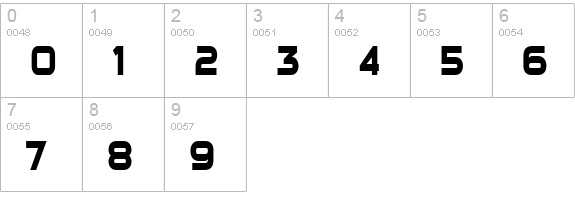
Sui Generis Condensed is a distinctive, condensed-width variant in the Sui typeface family \xE2\x80\x94 well suited to design and typography projects.
Sui Generis Condensed font is a modern and sleek typeface designed for a wide range of applications. Its condensed form makes it perfect for headlines, titles, and other display purposes where space is limited. The clean lines and sharp edges of this font give it a contemporary and professional look. What sets Sui Generis Condensed font apart is that it is available for free download at FontsMarket.com. This means that you can easily access and use this high-quality font for your projects without any cost. Whether you're working on a branding project, poster design, or website layout, Sui Generis Condensed font is a versatile choice that will elevate your work with its stylish and minimalist aesthetic. Don't miss out on the opportunity to enhance your designs with Sui Generis Condensed font - get it for free today at FontsMarket.com and take your typography to the next level!